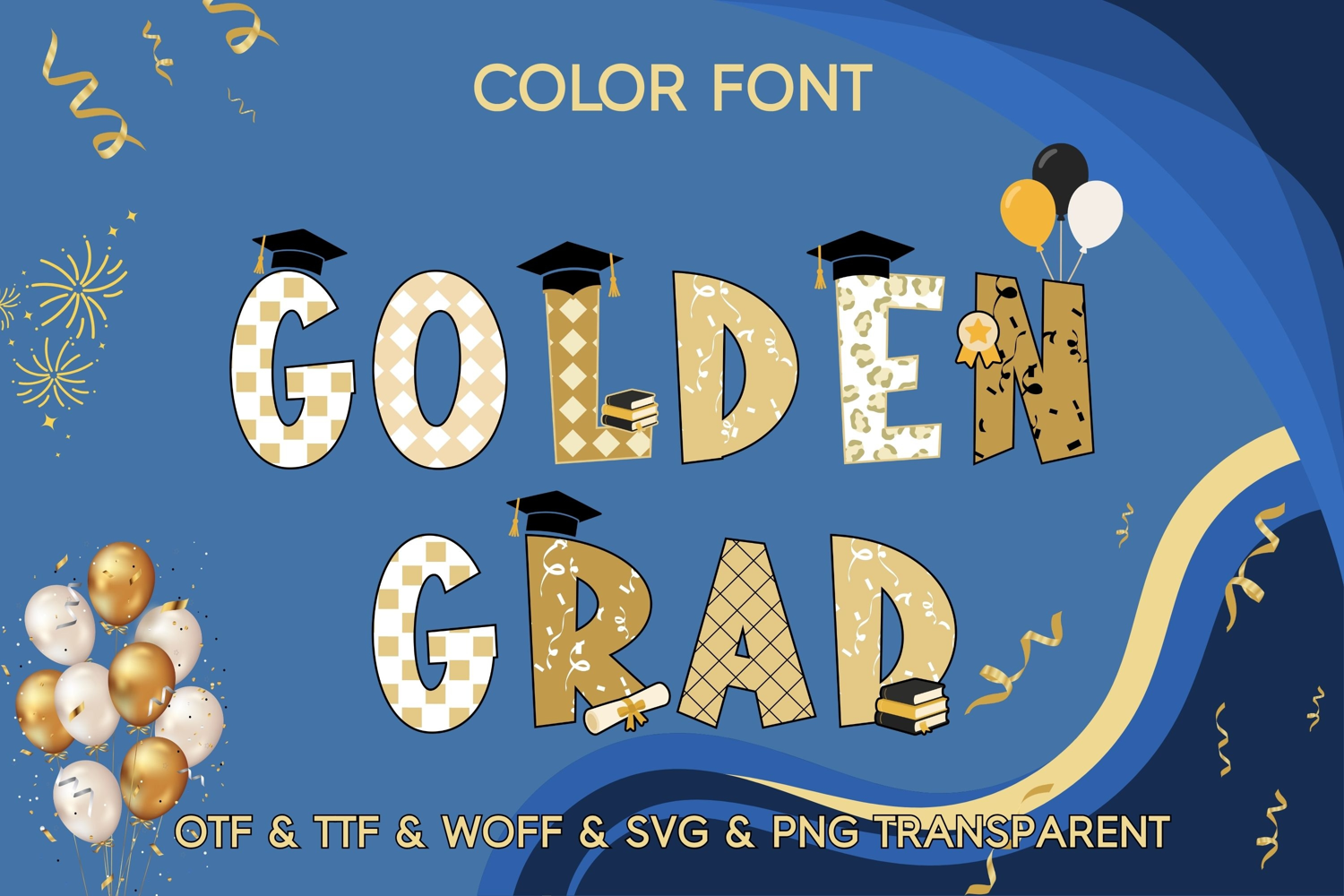
Golden Grad Font
Celebrate graduation in style with this Graduation Color Font Bundle featuring bold and playful alphabet letters decorated with graduation caps, diplomas, balloons, books, confetti, and festive patterns. Perfect for graduation party invitations, sublimation projects, stickers, t-shirts, posters, scrapbooking, classroom decor, social media graphics, and Cricut crafts. Designed with a modern and fun aesthetic, this font is ideal for senior graduation projects, graduation season designs, and creative digital crafting.
Perfect for greeting cards, children’s crafts, party invitations, stickers, and holiday merchandise, this color typeface comes in OTF, TTF, WOFF, SVG, and PNG formats for versatile use. Its bright palette and adorable design bring a joyful energy to every creation. Each glyph is richly detailed and rendered in color, making it ideal for projects where character and personality matter.